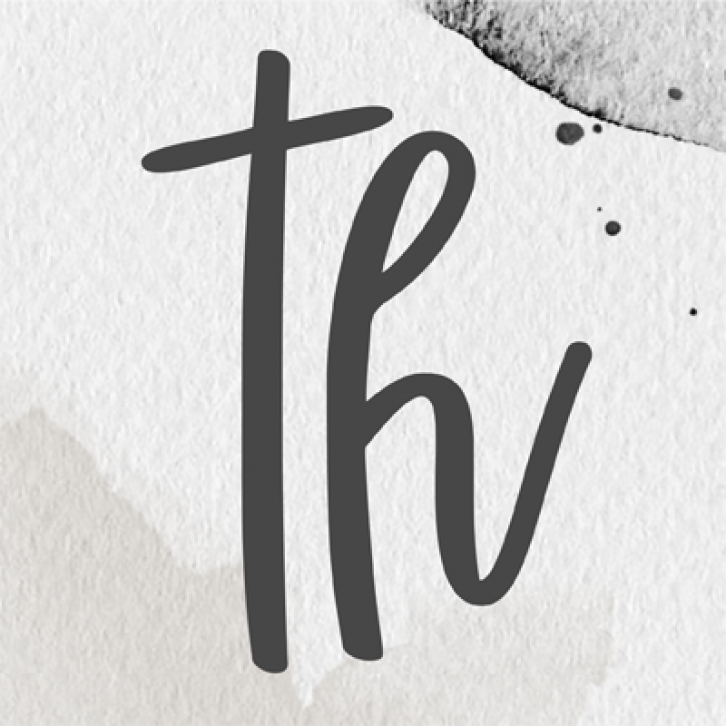
Wonsmith is a family of 3 handwritten script fonts, including latin and cyrillic alphabet and diacritic symbols, so the font can be used for most European languages. Ligatures of the most common letter pairs are included.